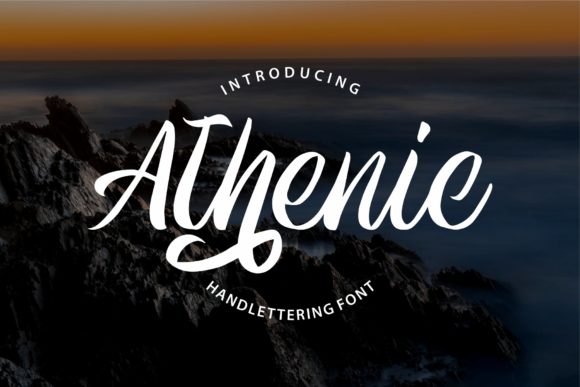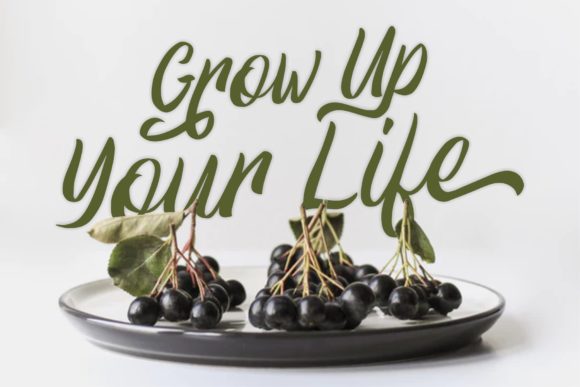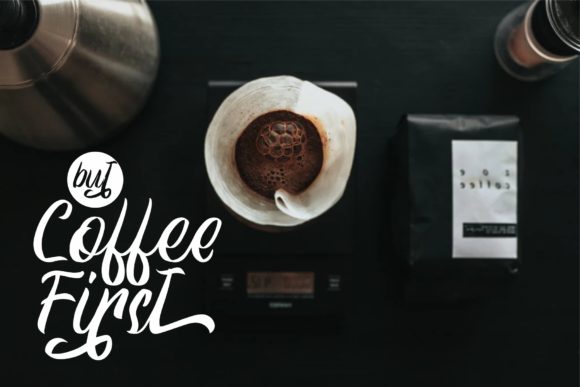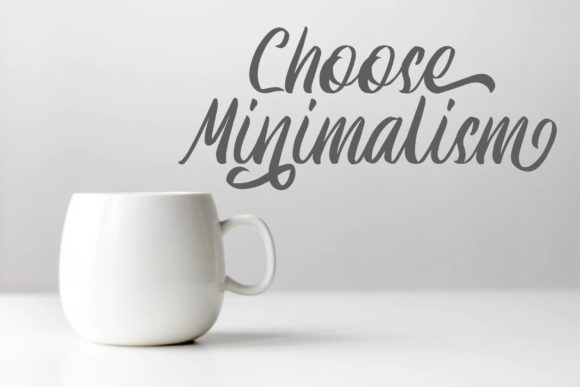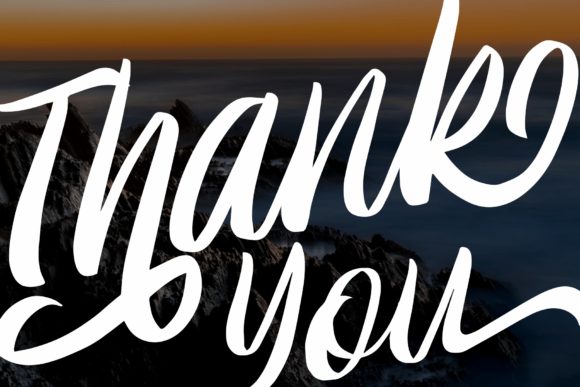
Athenic Font
About Athenic Font
The Athenic is a classic script font. It has a great readability with a natural handwritten feel.
It’s perfect for logos, invitations, branding, advertising, and much more!